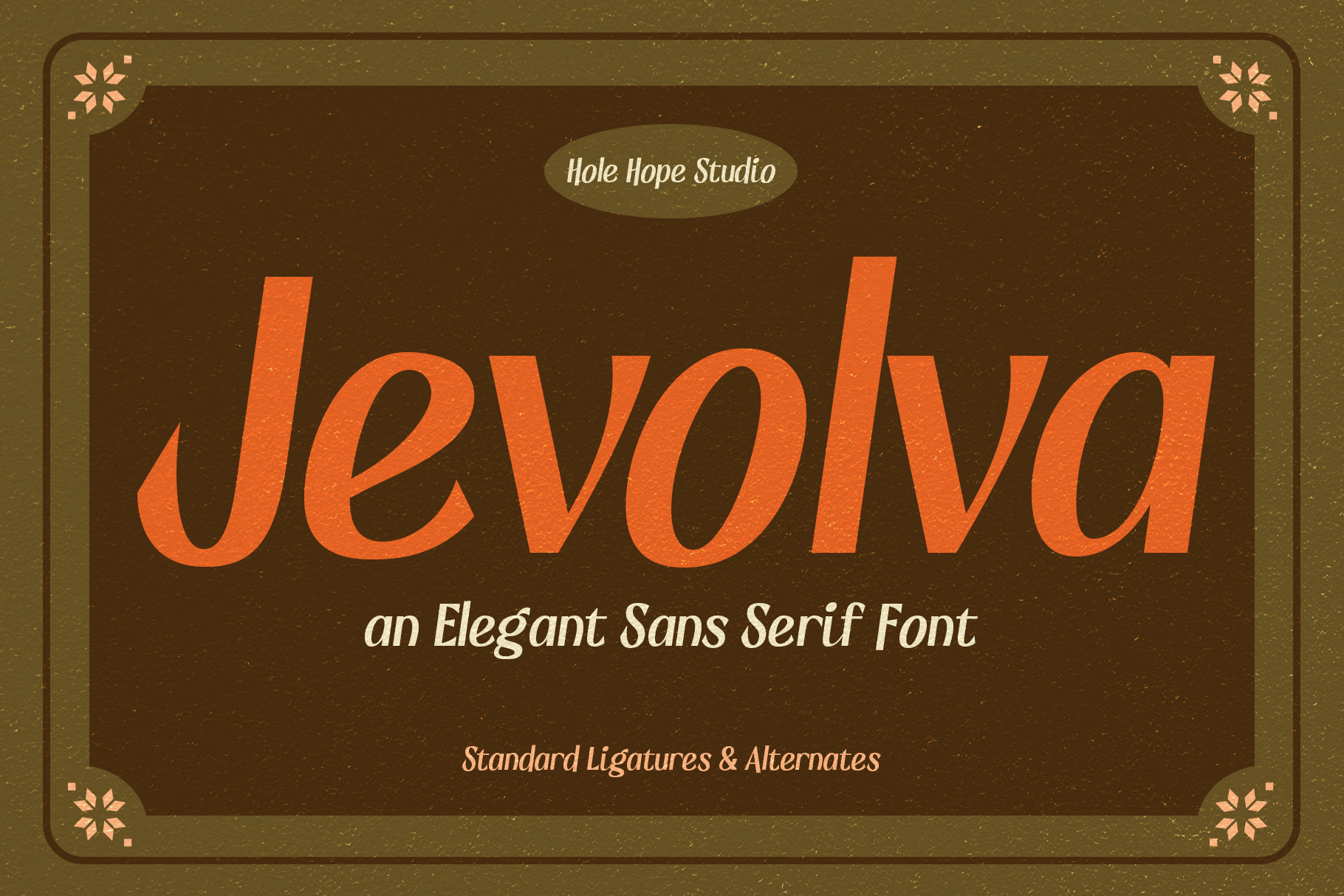
Jevolva – Elegant Sans Serif Font
Jevolva is an elegant sans serif font that beautifully blends timeless sophistication with a touch of vintage handwriting charm. Its clean lines and graceful curves make it versatile for both modern and classic designs, while the subtle handcrafted feel adds a warm, personal character. Perfect for branding, invitations, logos, packaging, and editorial projects, Jevolva brings a refined yet approachable style to any creative work.
Jevolva – Elegant Sans Serif Font features: